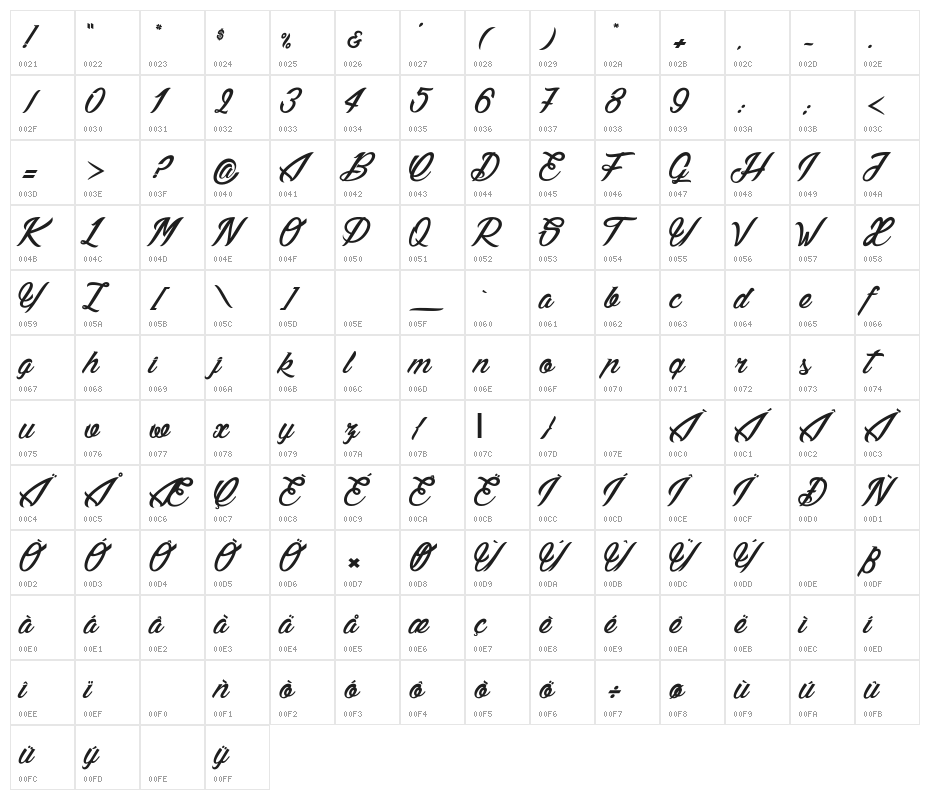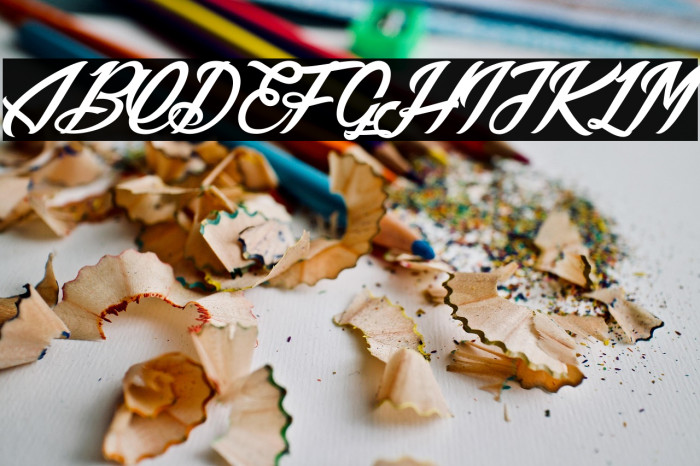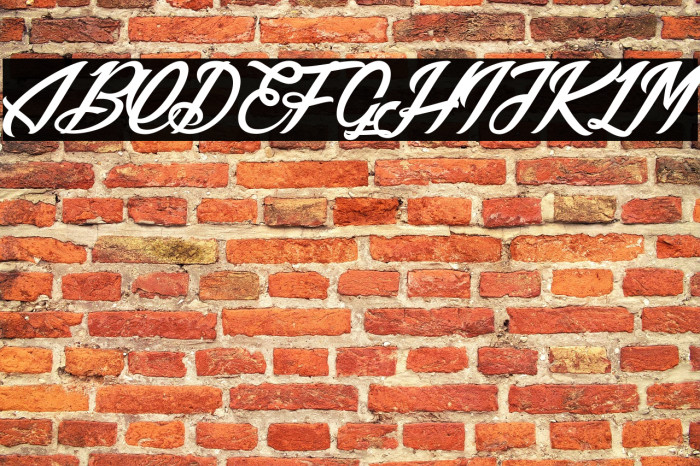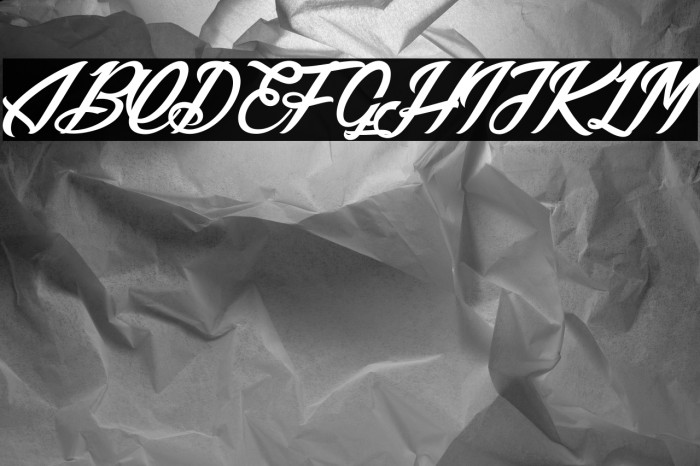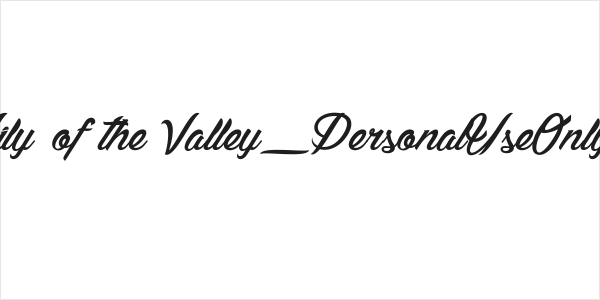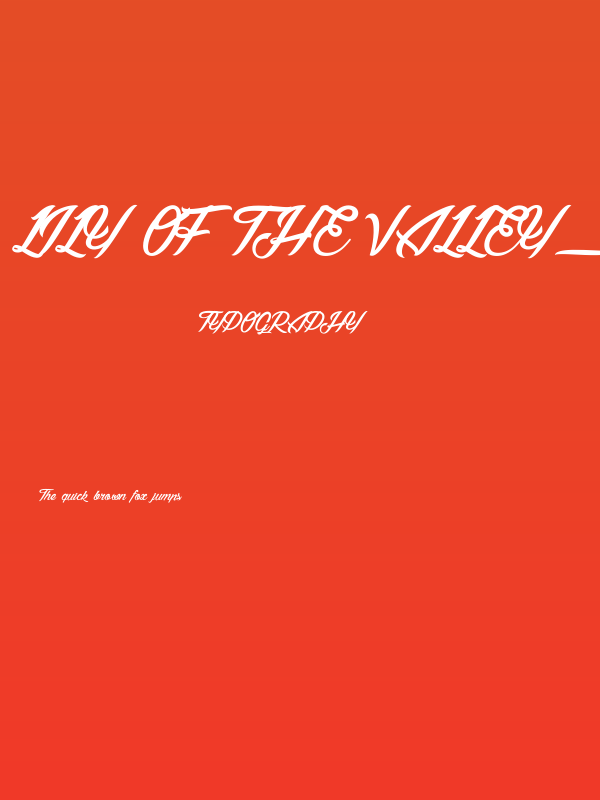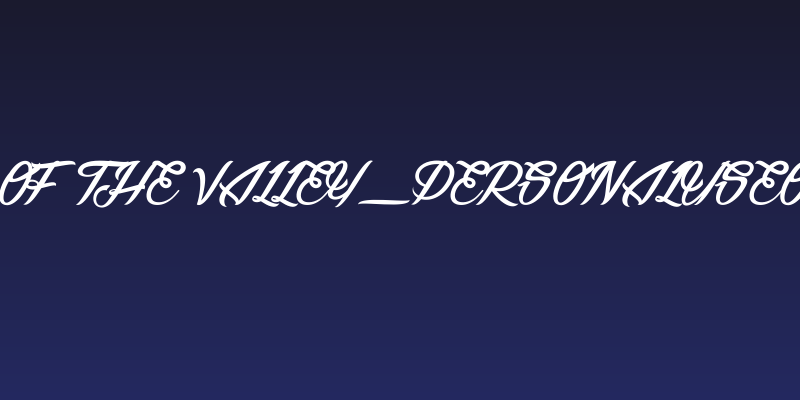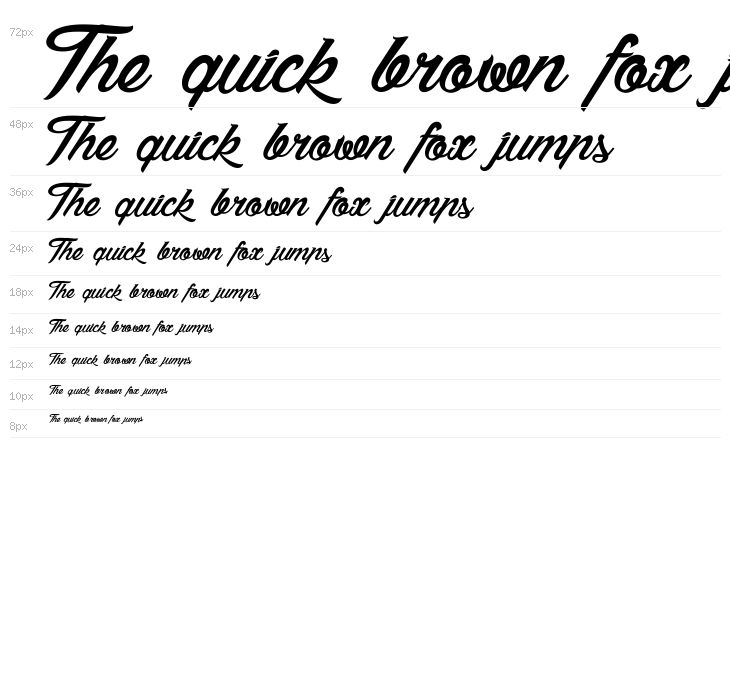
Lily of the Valley_PersonalUseOnly Font
Lily of the Valley_PersonalUseOnly Description
This font features an elegant and flowing script style, characterized by its cursive and connected letterforms. The uppercase letters exhibit a graceful and sophisticated flair, with sweeping curves and loops that enhance its decorative appeal. The lowercase letters maintain a consistent flow, ensuring readability while retaining an artistic touch. The numerals and special characters are designed to complement the overall aesthetic, with a similar emphasis on curves and fluidity. This font exudes a sense of elegance and refinement, making it suitable for formal and decorative applications.
| Proposed Projects | Ideal for wedding invitations, elegant branding, greeting cards, and decorative signage. |